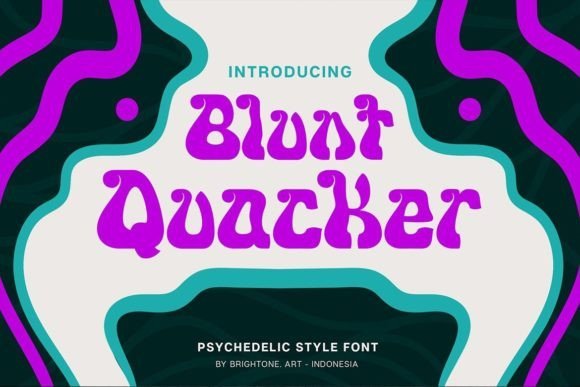
Introduction to Blunt Quacker Font
Blunt Quacker is a decorative font with good style and unique touch.
This font is suitable for all your logo lettering, logos, labels, packaging, stickers, and branding purposes .
Why Choose Blunt Quacker Font?
Blunt Quacker Font offers exceptional quality and versatility, making it a valuable addition to your design toolkit. Whether you’re creating for personal projects or commercial use, Blunt Quacker Font delivers professional results.